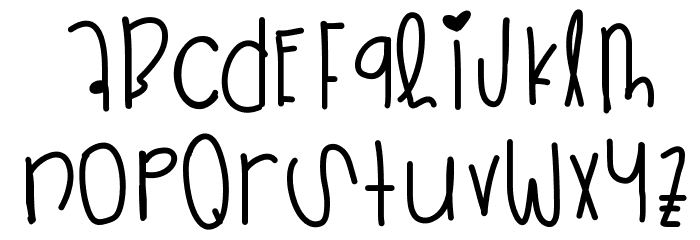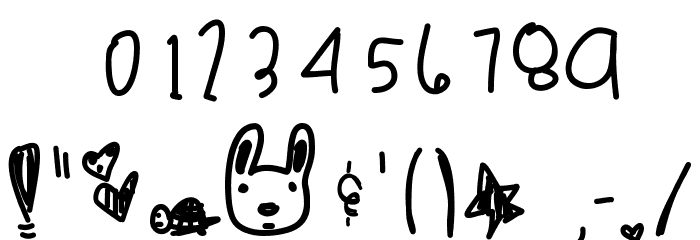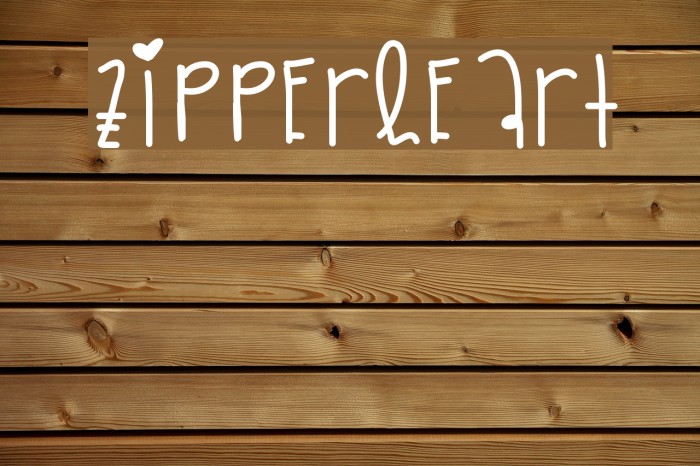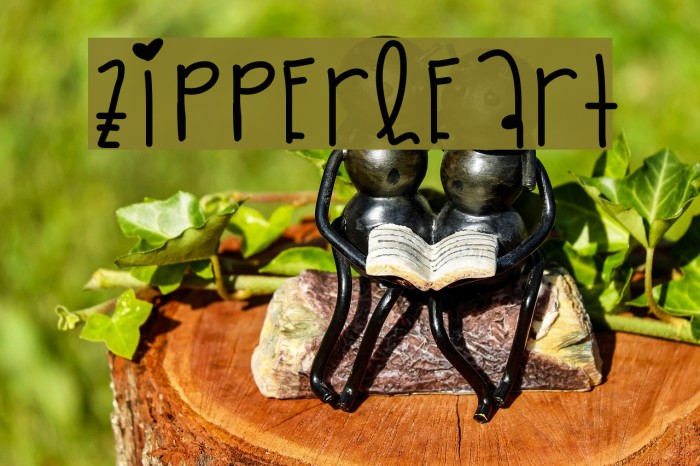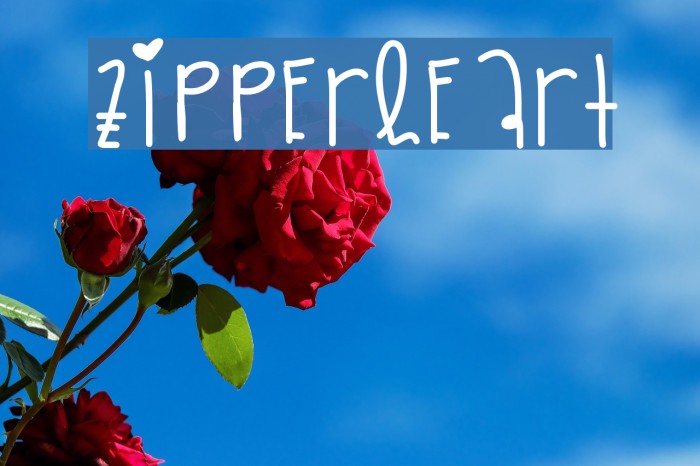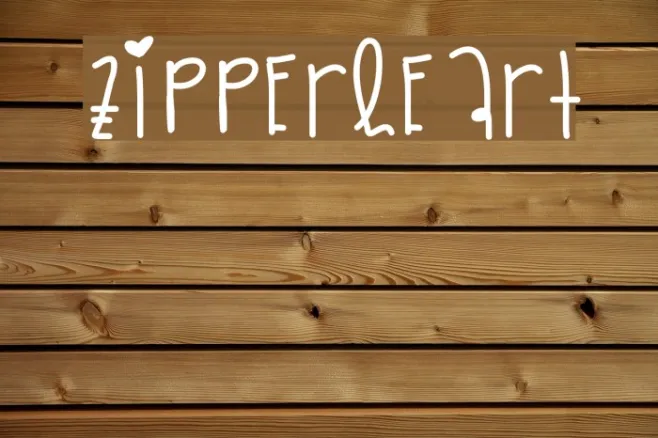
ZipperHeart Font
This playful and whimsical font features a handwritten style with unique, quirky elements. Each character is crafted with a casual, free-form appearance, incorporating heart shapes and playful curves that add a touch of charm and personality. The letters have a consistent stroke width, giving it a uniform look despite its informal style. The numbers and special characters maintain the same playful aesthetic, making it suitable for creative and fun projects. The font's overall appearance is light-hearted and approachable, perfect for designs that aim to convey warmth and friendliness.
A playful, handwritten font with quirky, heart-shaped accents.
- Proposed Projects: Ideal for children's books, greeting cards, playful branding, and social media graphics.
- Category: Handwritten
- Use Case: Logos, Headlines, Invitations